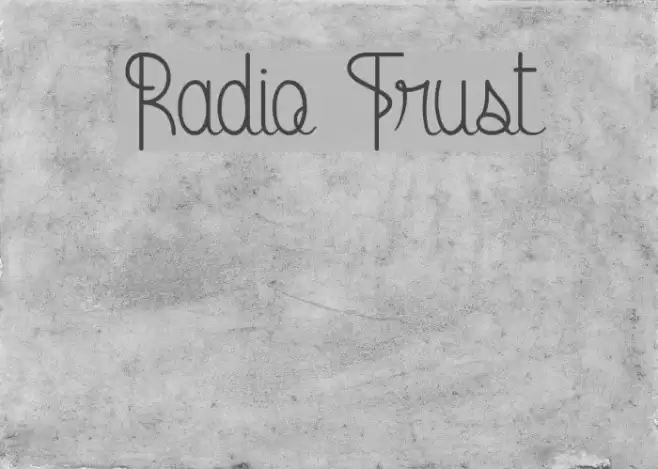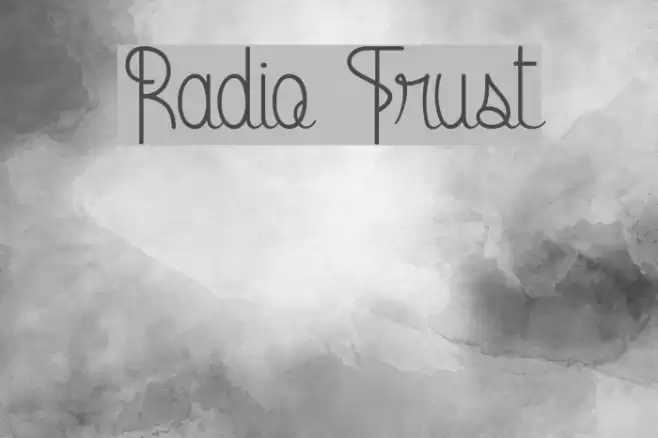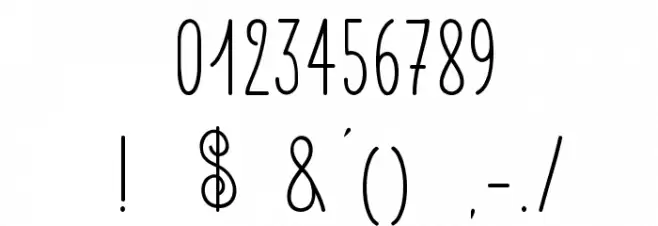
Radio Trust Font
Radio Trust Description
This font features a whimsical and playful design with a handwritten style. The characters are tall and narrow, with a unique looping and curling effect that adds a sense of movement and fluidity. The uppercase letters are particularly distinctive, with exaggerated curves and swirls that give them a decorative flair. The lowercase letters maintain a consistent style, with smooth, flowing lines that create a cohesive look. The numbers and special characters follow the same playful aesthetic, making this font suitable for creative and artistic projects. The overall appearance is both charming and elegant, making it ideal for designs that require a touch of personality and creativity.
A whimsical, handwritten font with playful loops and curls from Uncategorized fonts.
- Proposed Projects: Ideal for greeting cards, invitations, children's books, and creative branding.
- Use Case: Logos, Invitations, Artistic projects